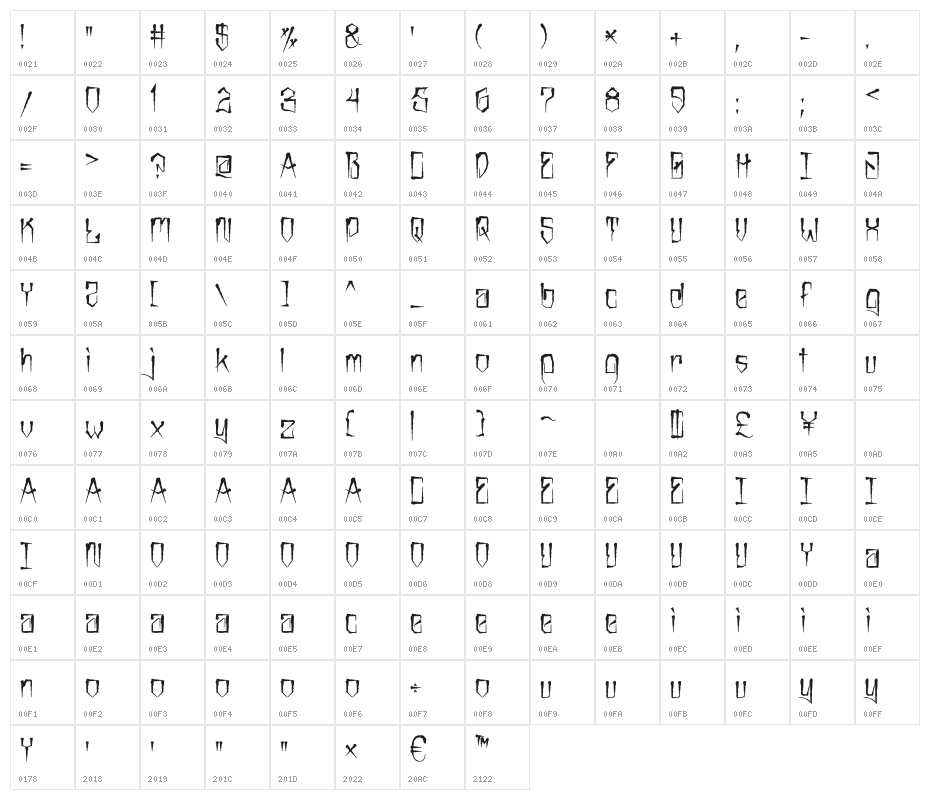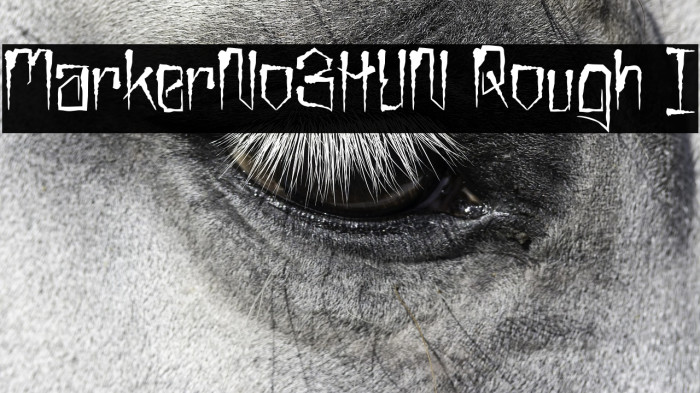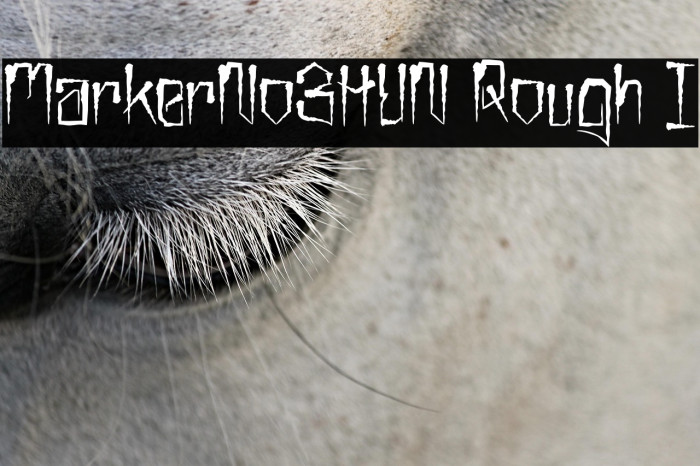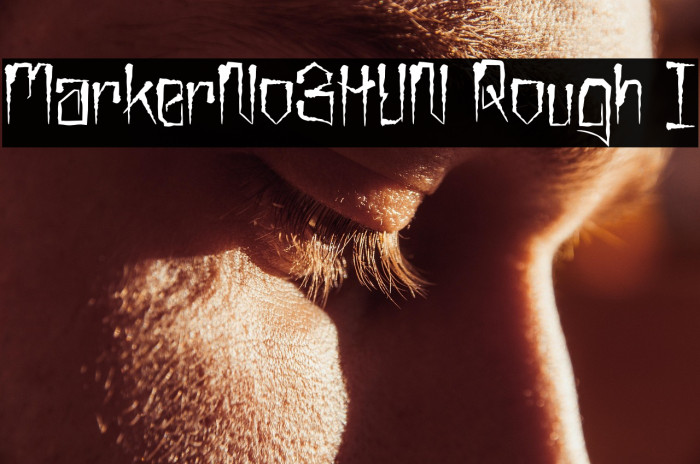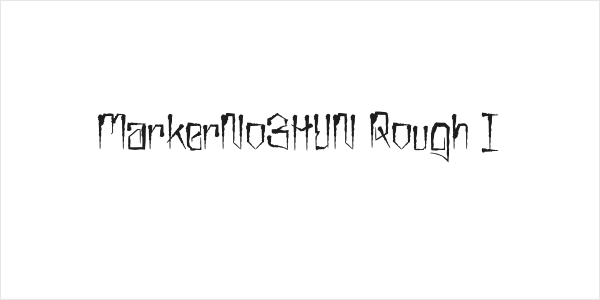
MarkerNo3HUN Rough I Font
MarkerNo3HUN Rough I Description
This font features a rough, edgy style with sharp, jagged edges and an irregular, hand-drawn appearance. The characters are bold and striking, with a distressed texture that gives them a gritty, urban feel. The uppercase and lowercase letters maintain a consistent height, while the numbers and special characters complement the overall design with their rugged look. This font's unique aesthetic makes it ideal for projects that require a bold, unconventional typeface.
| Overall Style | Modern, Urban, Edgy |
| Proposed Projects | Ideal for album covers, posters, street art designs, and edgy branding projects. |